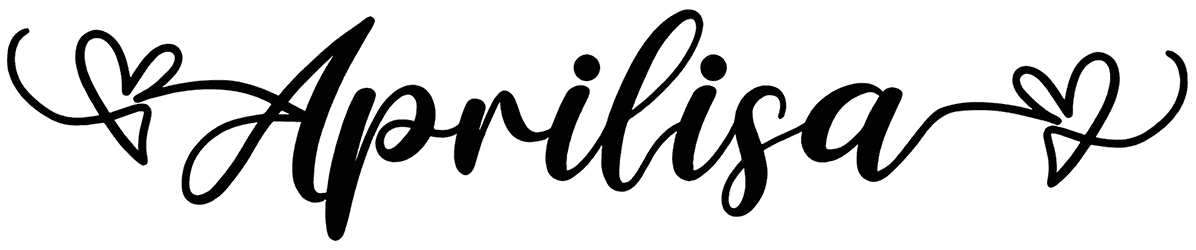
Aprilisa Font
Some fonts make you stare at them and touch your deep feelings. The Aprilisa is a font that sends a romantic vibe through its curving design. A phrase written with this font is smooth, and the eyes play inside the circular forms of the letters.
Sometimes when you look at the thin tails of letters in Aprilisa font, it reminds you of eastern typography. Besides, a considerable consistency in the design of the characters is the plus point of this font.